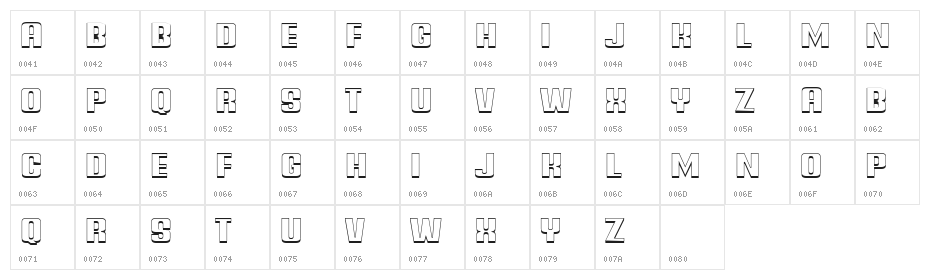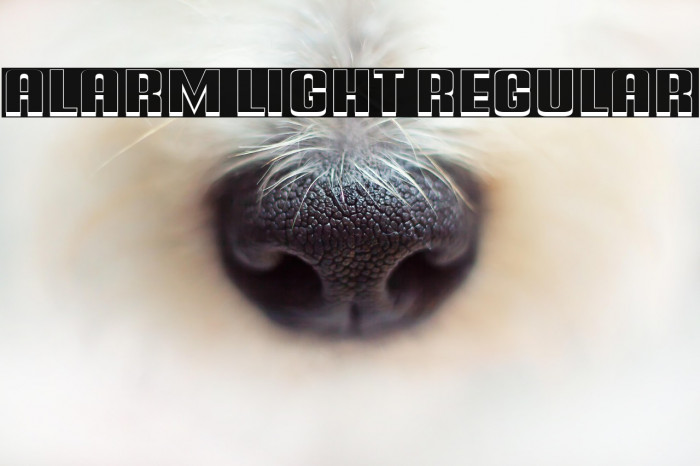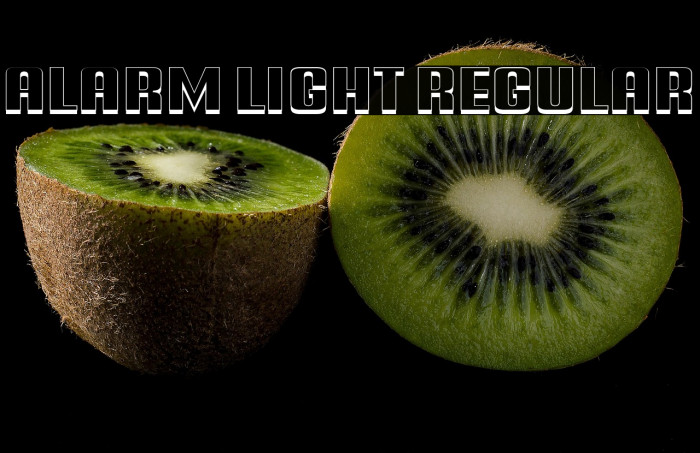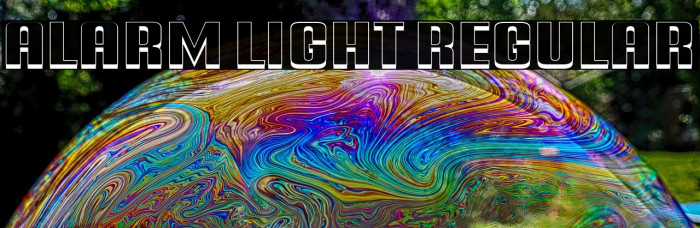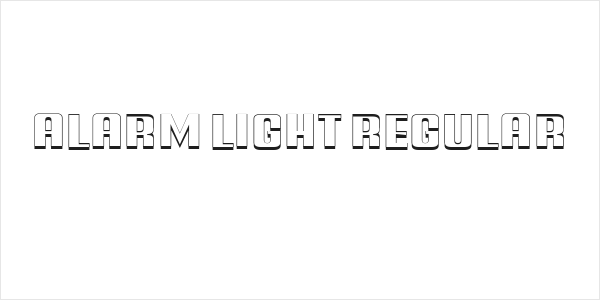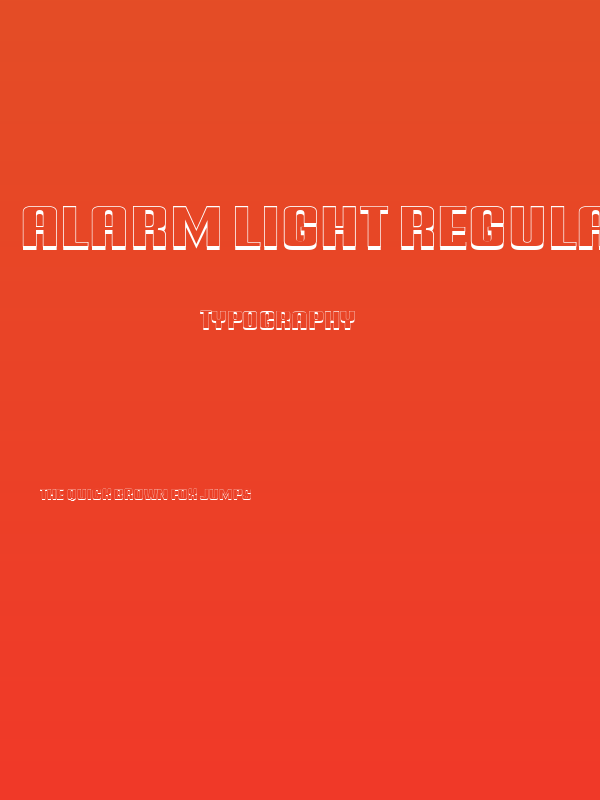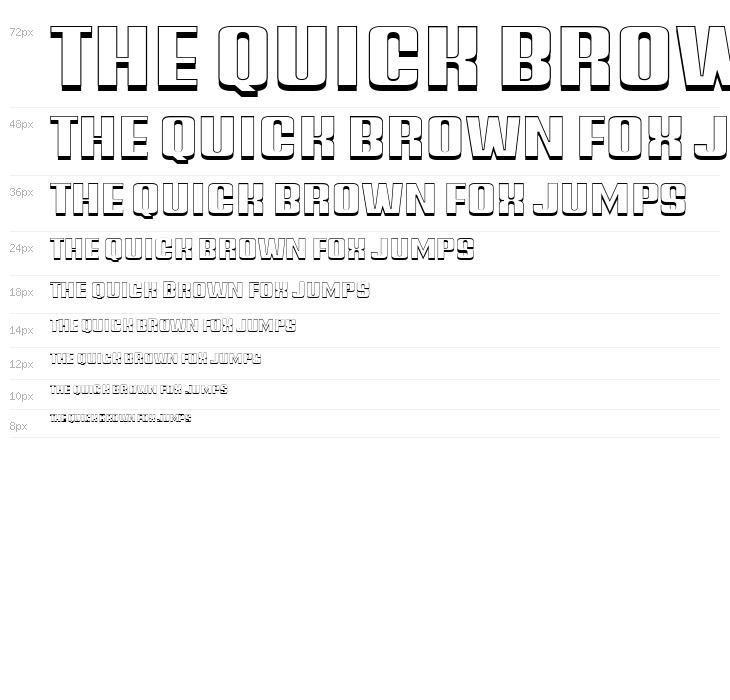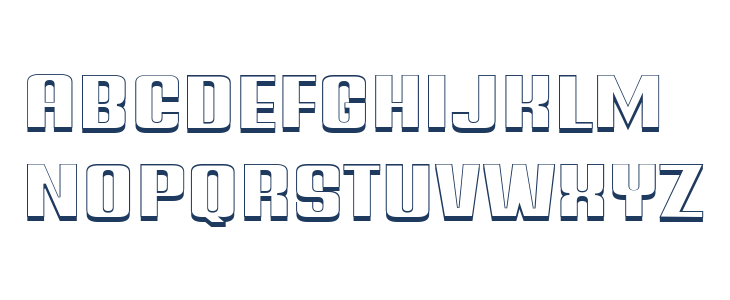
Alarm Light Regular Font
Alarm Light Regular Description
This font features a bold, geometric design with a three-dimensional effect, created by a shadow that gives depth to each character. The uppercase letters are uniform in height and width, with sharp, clean lines that convey a modern and industrial feel. The font's structure is robust, making it highly legible and impactful. The shadow effect adds a layer of complexity and interest, making it suitable for attention-grabbing designs. Its strong presence and clarity make it ideal for headlines and titles where emphasis is needed.
| Proposed Projects | Ideal for branding, posters, signage, and any project requiring a strong visual impact. |